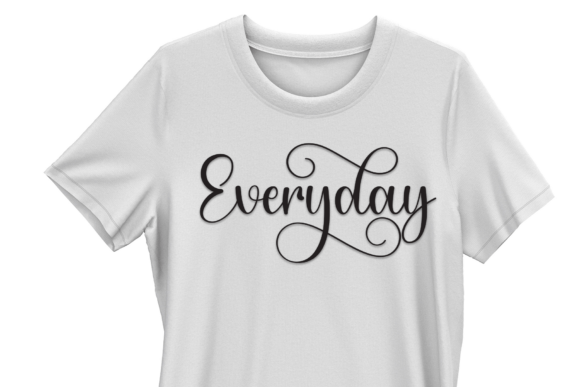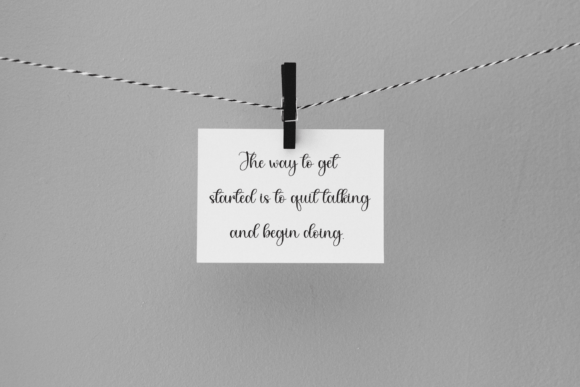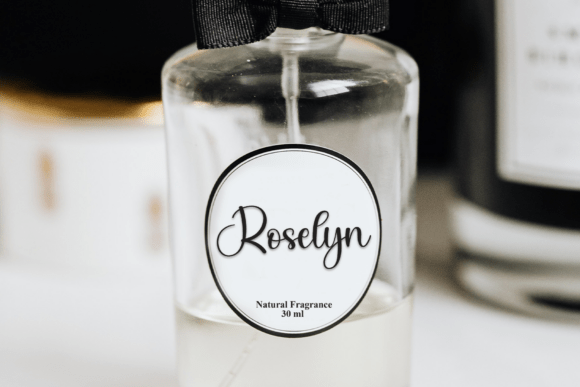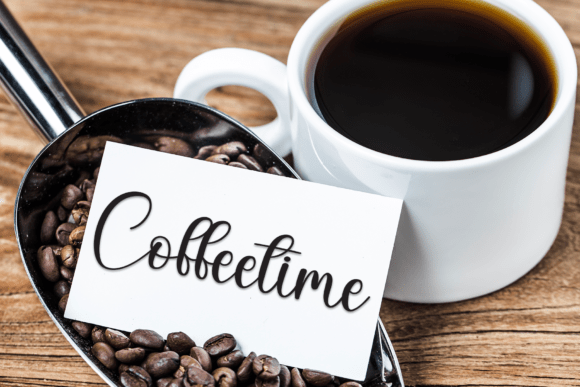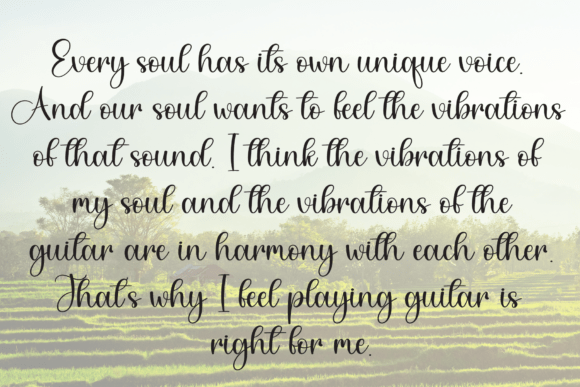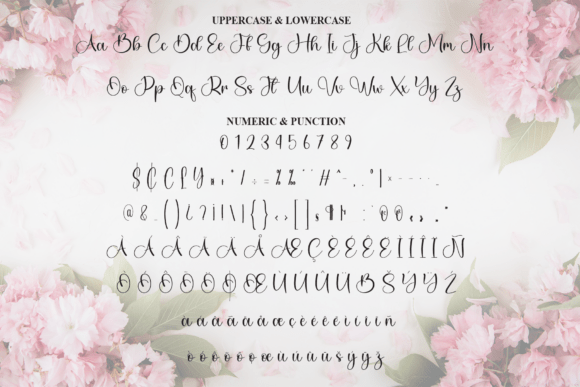
Adding Elegance to Your Designs
Do you remember the moment when you stumbled upon the perfect font for your project? The one that made everything fall into place and took your design to the next level? For many creatives, it’s a moment that’s hard to forget. Whether you’re working on a wedding invitation, a branding project, or a social media graphic, the right font can make all the difference.
Enter Angelica Font, a beautiful script font with Swashes that’s designed to add a touch of sophistication to your designs. With its elegant, flowing lines and beautiful beginning and ending swashes, Angelica Font is perfect for creating romantic and luxurious visuals. Whether you’re looking to create a whimsical feel or a more polished look, this font is a valuable addition to any designer’s toolkit.
Angelica Font Key Features
- Unique Characteristics: Angelica Font features a unique blend of elegance and sophistication, with intricate details and ornate flourishes that set it apart from other serif fonts.
- Font Family: The Angelica Font family includes 6 weights (Light, Regular, Demi, Medium, Demi Bold, and Bold) and 2 styles (Italic and Regular), providing a versatile range of options for designers and typographers.
- Language Support: Angelica Font supports a wide range of languages, including Latin, Greek, Cyrillic, and many others, making it suitable for international projects and publications.
Designer Review: Angelica Font
I recently had the chance to work with the Angelica font, and here’s my honest take on it.
- Elegant Script: The font has a beautiful, flowing script style that makes it perfect for titles and headings.
- Versatile: It’s suitable for a wide range of designs, from wedding invitations to food packaging.
- Customizable: The font comes in various styles and weights, making it easy to match your design needs.
- Limited Legibility: The font’s script style can make it difficult to read, especially at small sizes.
- Overuse: The font’s elegance can also make it feel overused and generic if used too much.
Overall, the Angelica font is a beautiful addition to any design. While it may have some limitations, its elegance and versatility make it a great choice for the right projects. Just be mindful of its potential drawbacks, and you’ll be golden.
Angelica Font is perfect for:
Branding and logos
Headings and titles in presentations and documents
Any design project where you want to add a touch of elegance and sophistication.